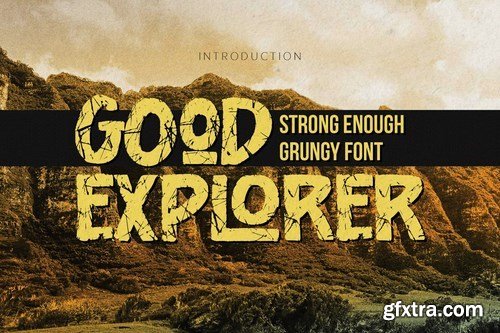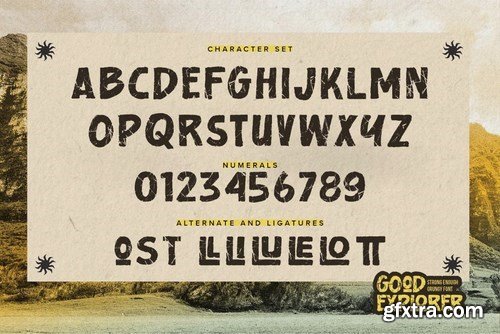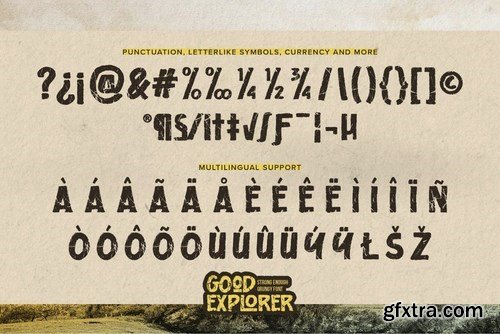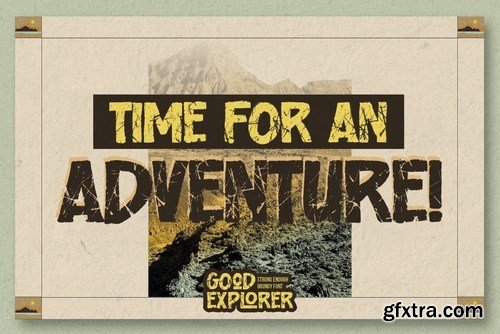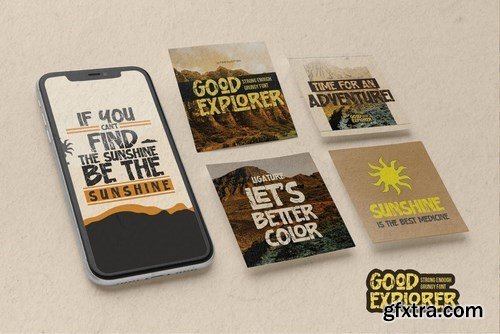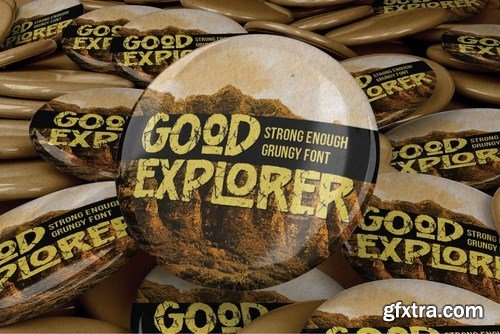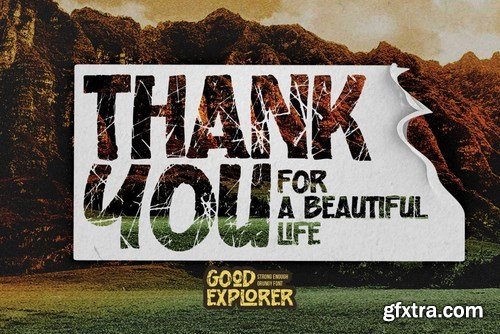
Here comes our new font Good Explorer This is a handwritten brush that is written casually and quickly. comes in two mode = Standart and italic. this font are made with brushes on Procreate. Then crafted carefully drawn into vector format. That is why Good Explorer has Rough and strong characteristic more natural look to your text with a more modern look to your text. You can activate Ligature OpenType panel to make these two styles. Good Explorer is perfect for homeware designs,branding projects, Logo design, Quotes product packaging, especially and scary themes
Standard and italic glyphs mode
Ligatures